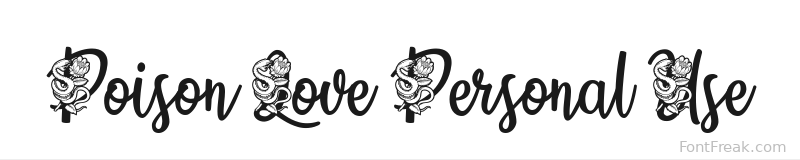
Poison Love Personal Use
About Poison Love Personal Use
The Poison Love Personal Use font, crafted by Billy Argel Fonts, is a captivating display typeface that embodies a unique blend of elegance and whimsy. This handwritten style font features a dynamic stroke weight that varies throughout its characters, creating a sense of movement and charm. The contrast between thick and thin strokes enhances its visual appeal, while the graceful curves and decorative elements, such as the intricate floral motifs, add a romantic touch that is perfect for various creative projects.
This font is particularly well-suited for wedding invitations, where its romantic flair can set the tone for a special day. It also shines in the creation of movie posters, allowing for an eye-catching title that captures the essence of a love story. Additionally, Poison Love Personal Use can be effectively used in restaurant menus to evoke a sense of warmth and intimacy, making it an excellent choice for cozy dining establishments. Graphic designers and content creators will find this font to be a versatile tool for branding projects, promotional materials, and social media graphics that require a personal and engaging touch.
What sets the Poison Love font apart is its ability to balance elegance with a playful spirit, making it a standout choice for any project that seeks to convey warmth and creativity. Whether you are crafting invitations, posters, or branding materials, this font's distinctive style will help your work leave a lasting impression.